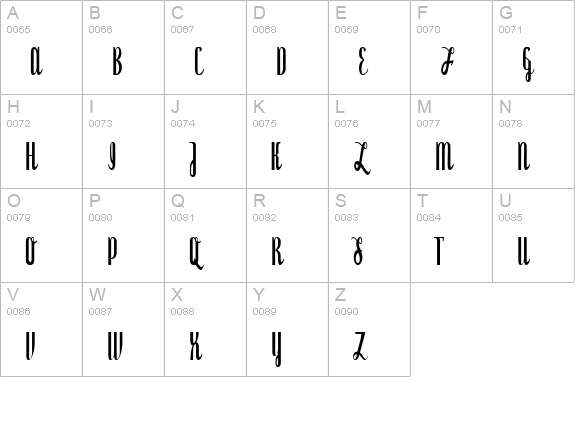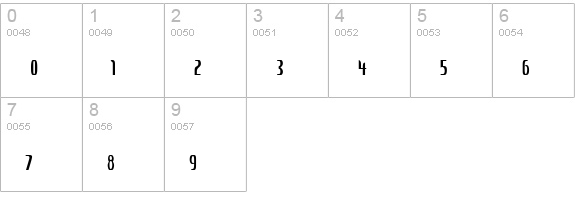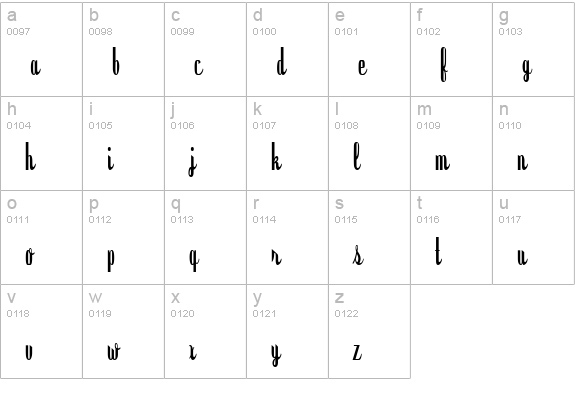
Dyspepsia Font Details
Dyspepsia font is a modern and sleek typeface that exudes sophistication and elegance. Its clean lines and sharp edges make it perfect for a wide range of design projects, from branding to editorial design. With its unique style and versatility, Dyspepsia font adds a touch of class to any design. And the best part? Dyspepsia font is available for free download at FontsMarket.com, making it accessible to designers and creatives of all levels. Whether you're working on a personal project or a client's brief, Dyspepsia font is sure to elevate your designs and make a lasting impression. Download this stunning font today and take your designs to the next level!